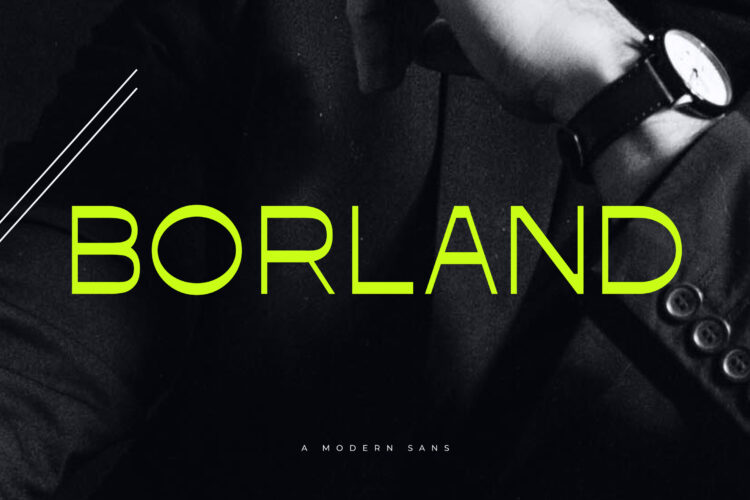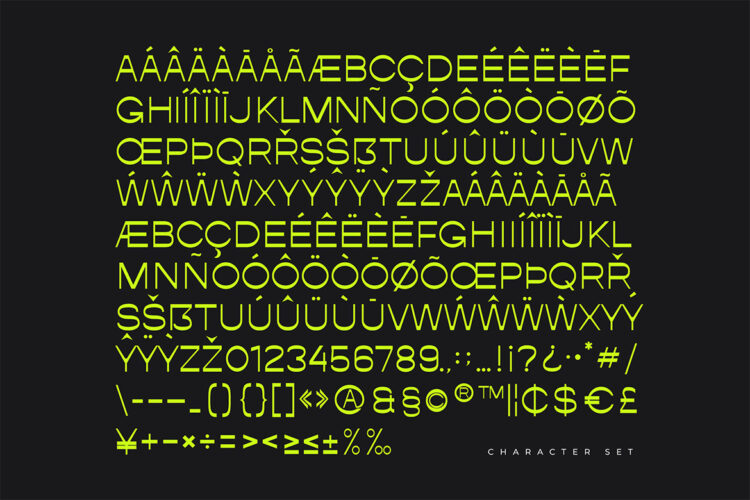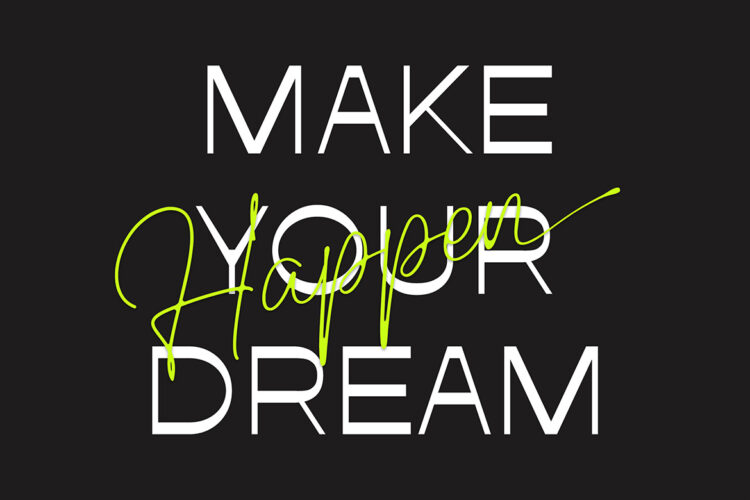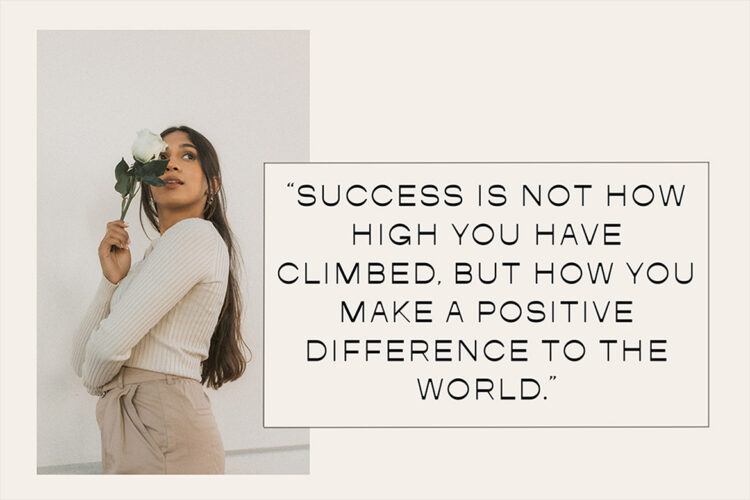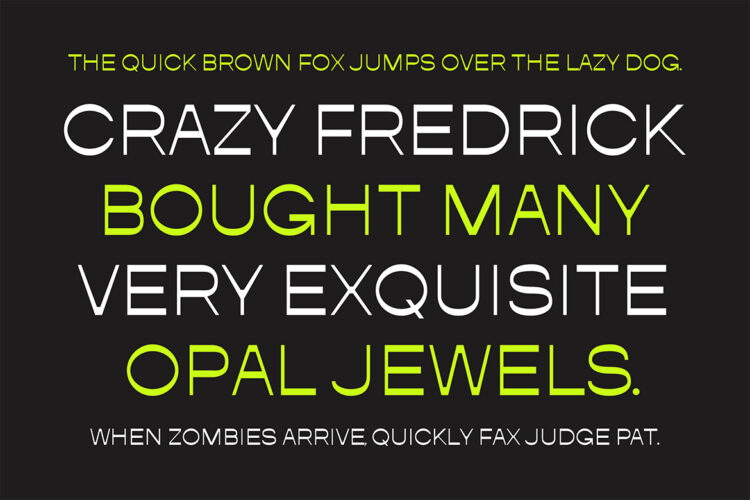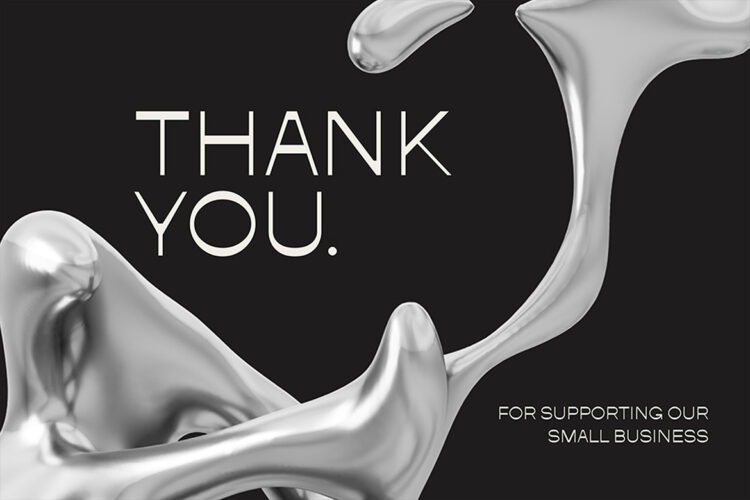
Introducing Borland – Modern Sans. Borland is a modern and simple font with more unique ligatures, best used as a display for headings, logos, branding, magazines, product packaging and invitations.
Borland Sans